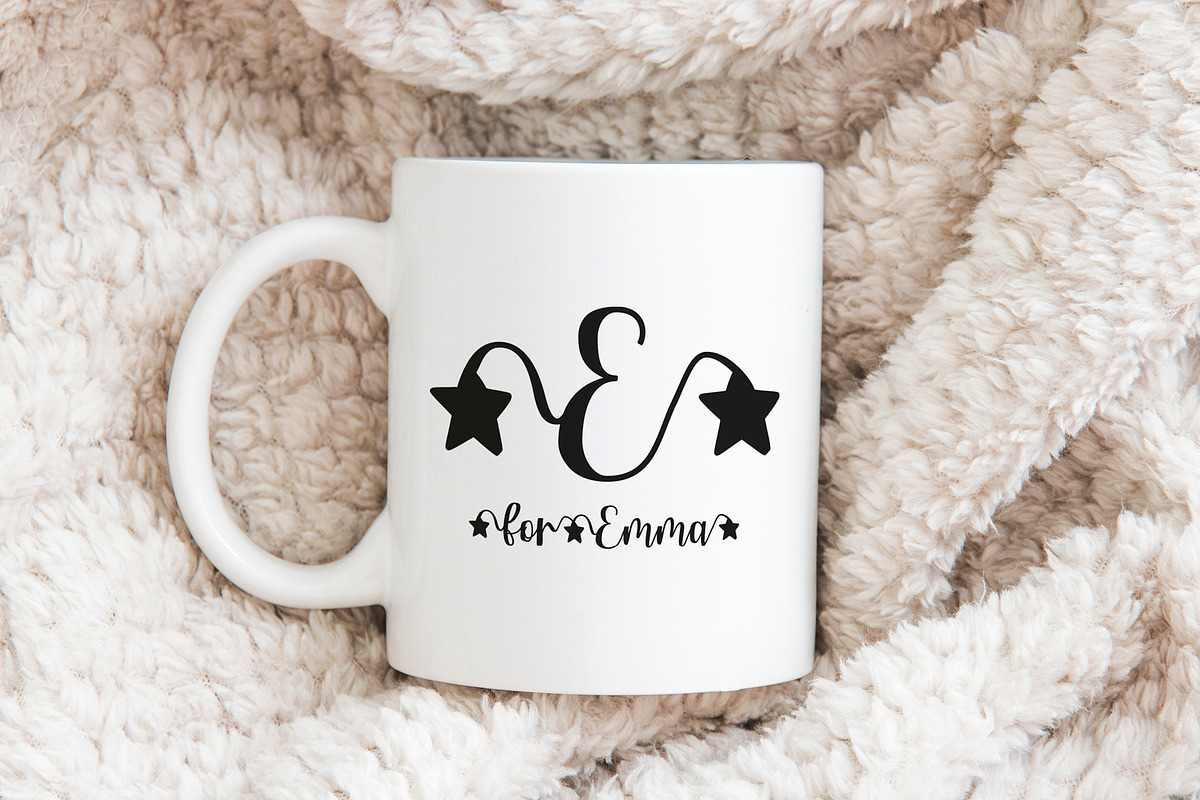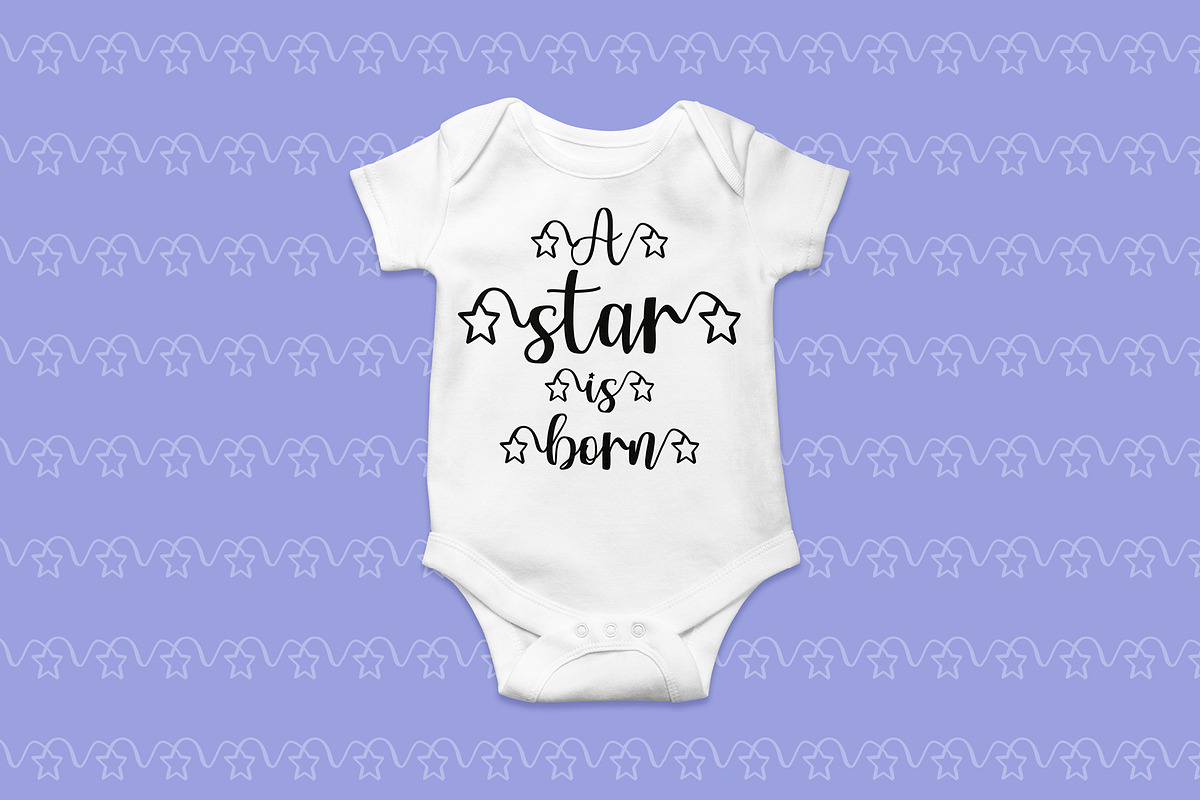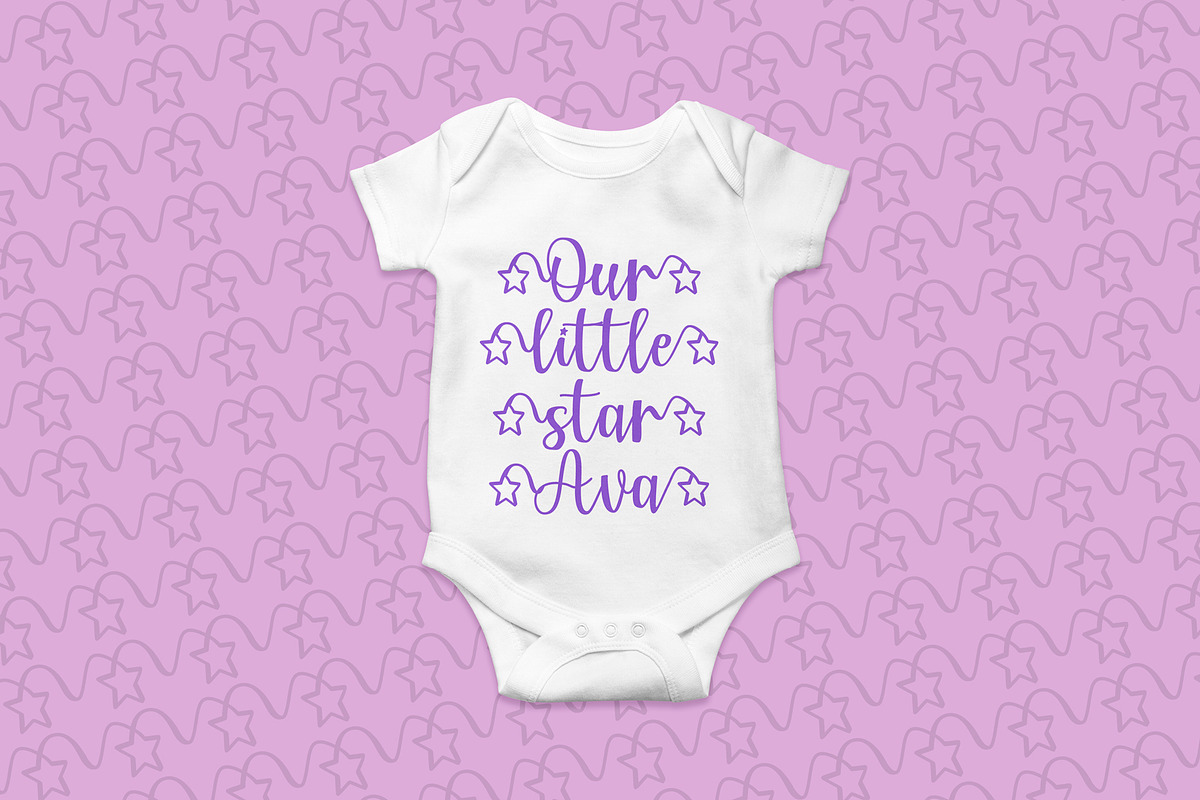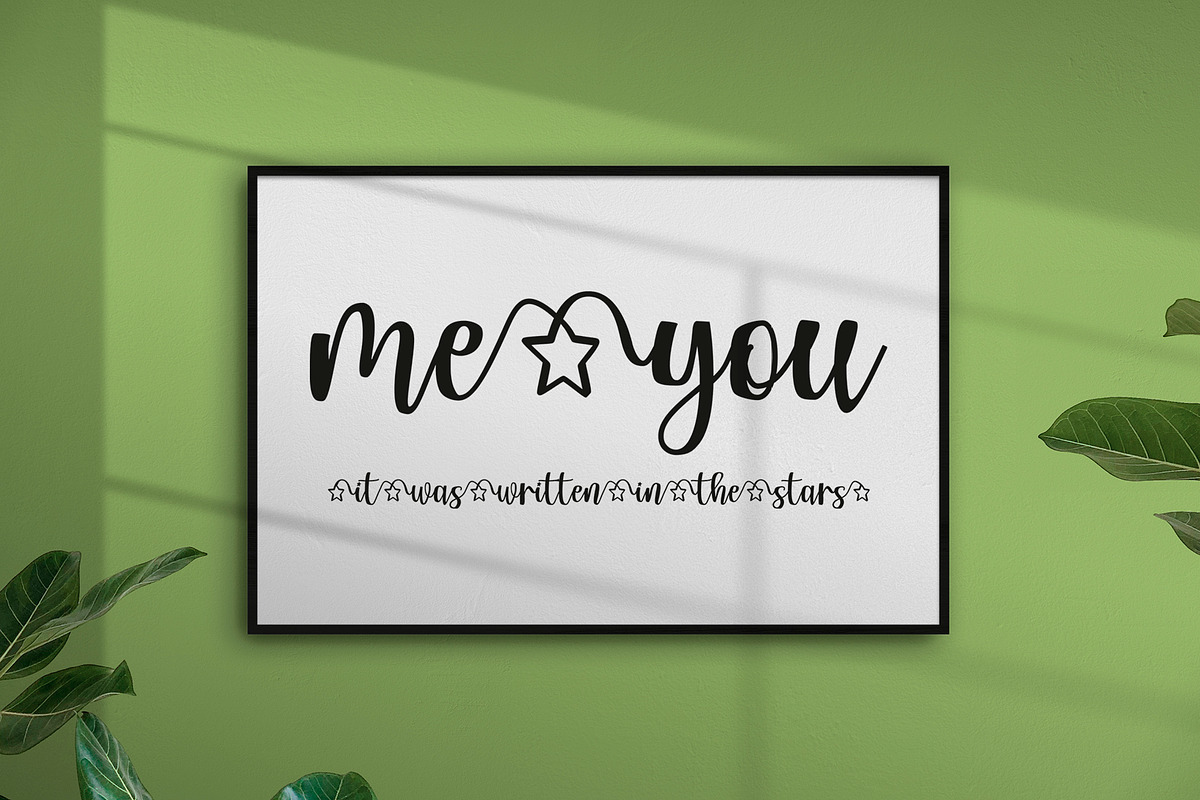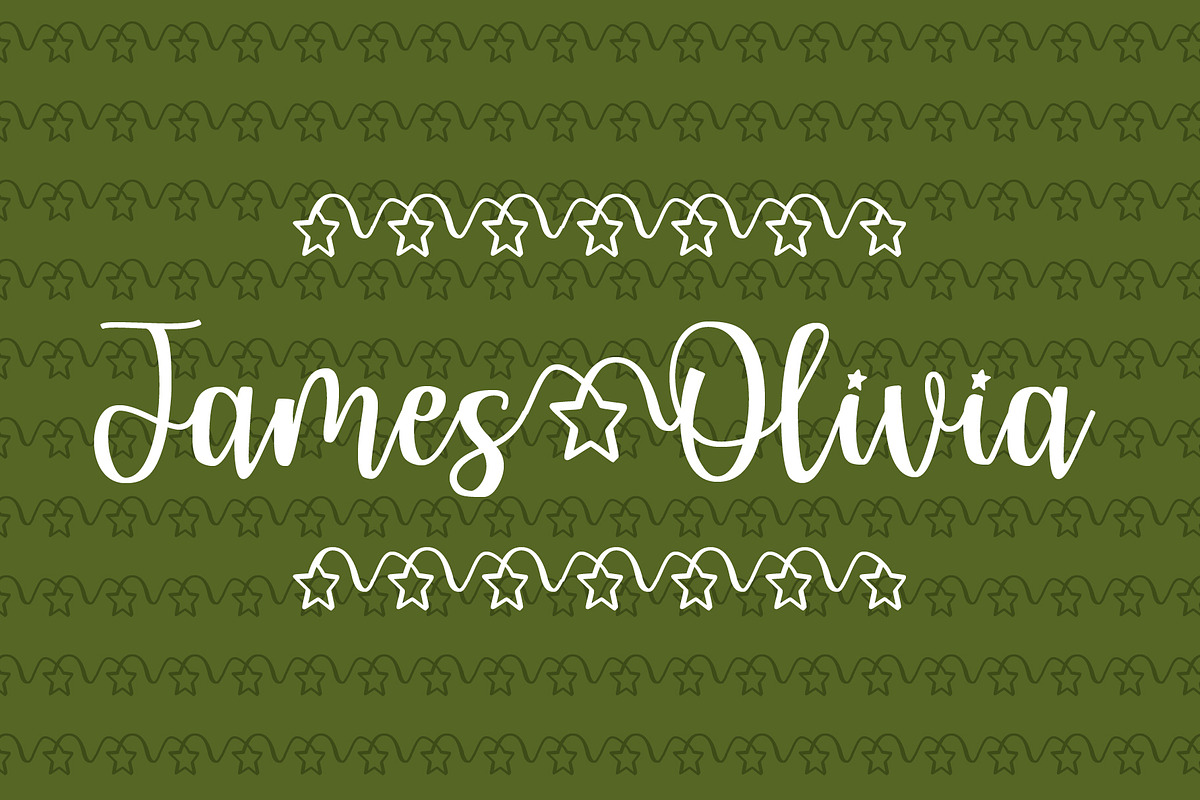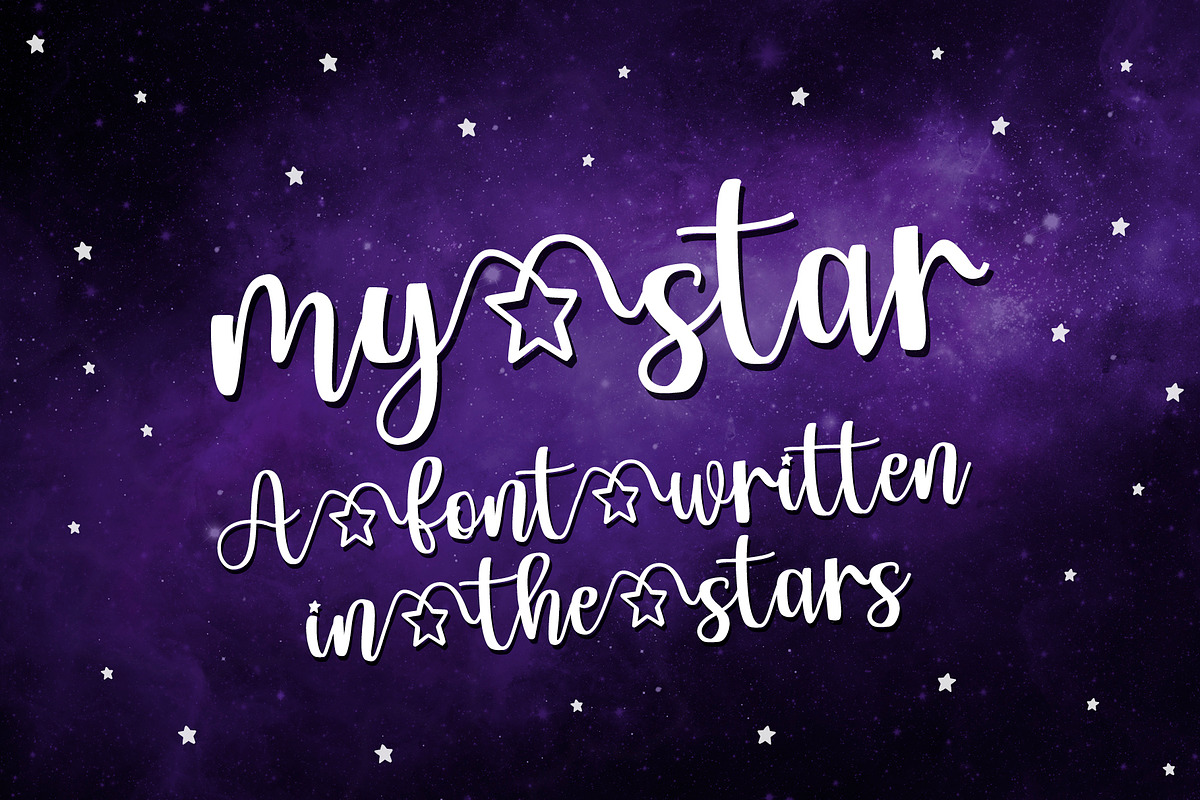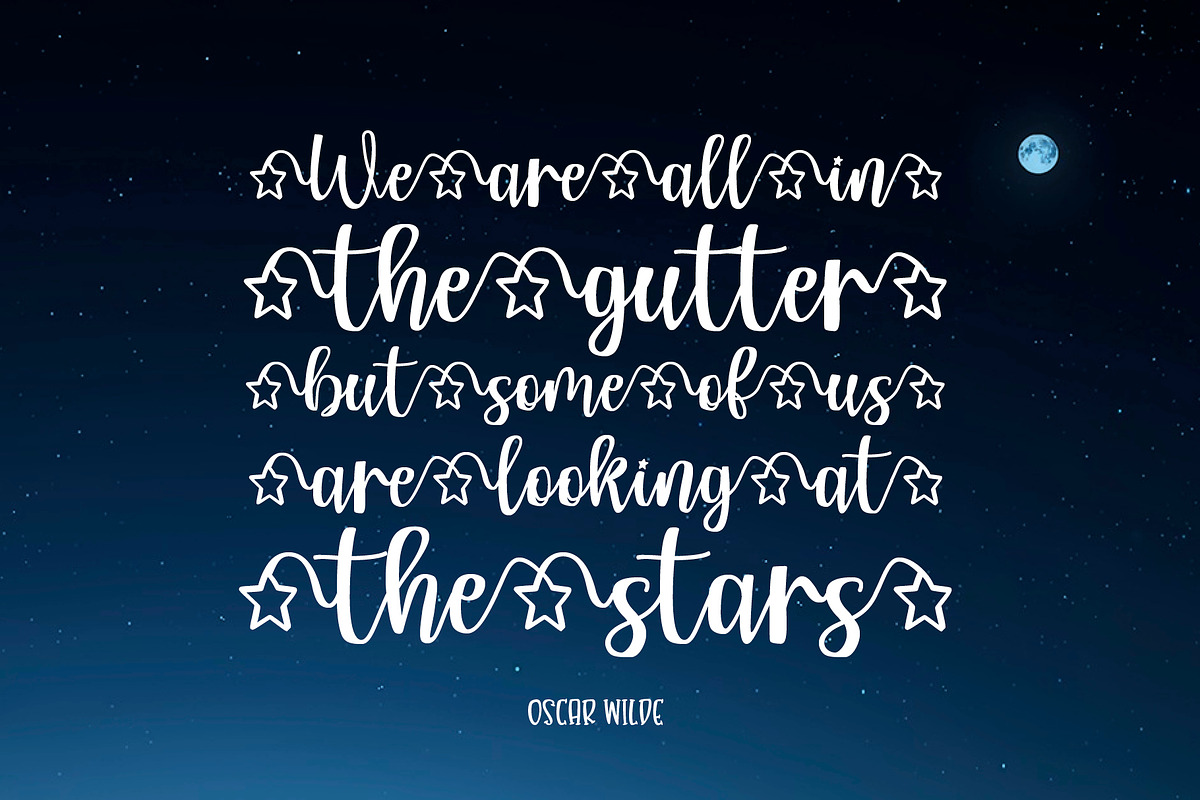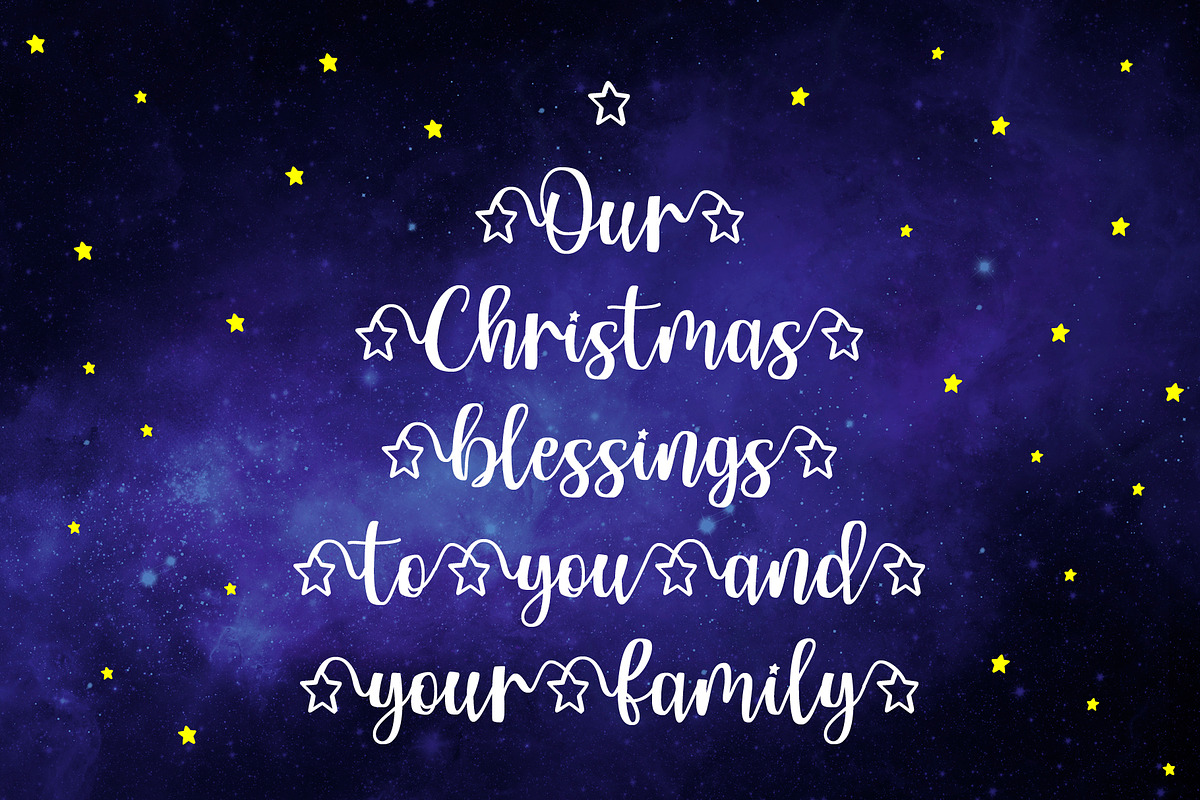
My Star - a font written in the stars
My Star is a font written in the stars!
This is our 'star' font to be used for your star projects! Star sisters, brothers, nieces, grandparents, partners, wives, nurses, young footballers... the list is endless. Designed for use to create messages, quotes... just to make people and their names that extra bit special. This font is also great when used for Christmas and religious themed work.
Simply use the bracket keys (, ), [, ], {, and } on your keyboard to create stars at the start and end of a word or line of text. You can also add in stars between words by simply using the hyphen key (-). There are a few star variations and solid and fill keys too. Due to these 'star' icons using some of the punctuation keys certain special characters such as quotation marks and brackets are not available. Whilst certain character combinations can work in Uppercase there are some clashes with overlapping characters and we do not recommend using in this way although uppercase letters can be separated by star icons to create a striking effect.